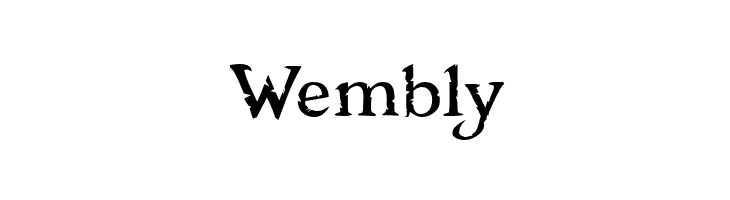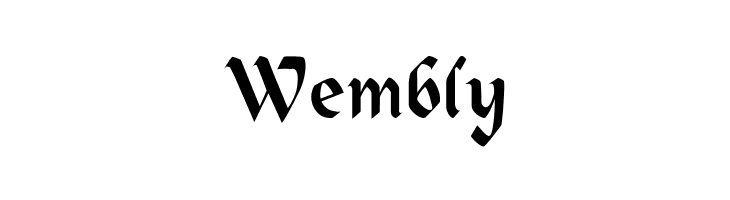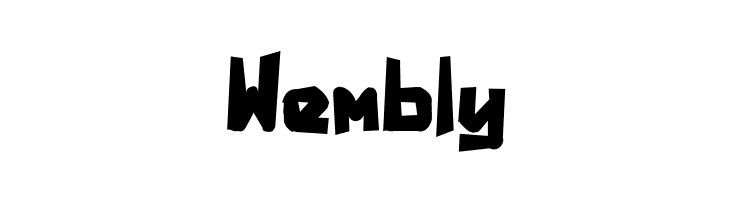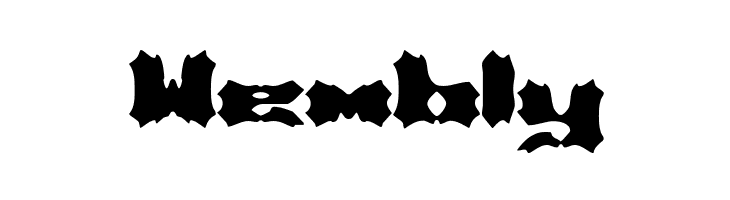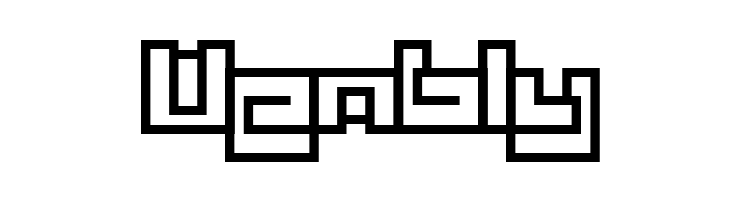
A bold, geometric font with a futuristic and industrial design.
A decorative, pirate-themed font with jagged, hand-carved edges.
( Fonts by Jonathan Smith )
A decorative font with cursive script letters inside bold heart shapes.
( Fonts by Mr Fisk - Mike Larsson - fontorama.net )
A distressed, grunge-style font with a bold, rugged appearance.
( Fonts by Rick Mueller )
A bold, decorative font with ocean-themed wave patterns and a 3D effect.
( Fonts by Matthew Welch - www.squaregear.net/fonts/ )
A bold, modern font with clean lines and a geometric influence.
A bold, candy-striped font with a playful and festive style.
A bold, outlined font with a three-dimensional effect and consistent character height.
A bold, jagged, and geometric font with an edgy, hand-drawn appearance.
( Fonts by www.DigitalDreamDesign.net )
A geometric, maze-like font with bold outlines and a futuristic style.